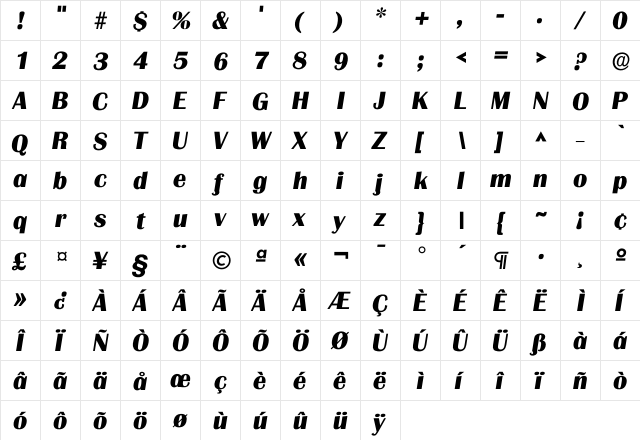
Igrenoble ExtraBold Font Preview
Igrenoble ExtraBold
Design Context for Igrenoble Typeface
Igrenoble offers clean, dependable letterforms without strong stylistic allegiance, making it a practical choice for designers who need flexibility. The heavy weight commands attention and anchors typographic hierarchies.